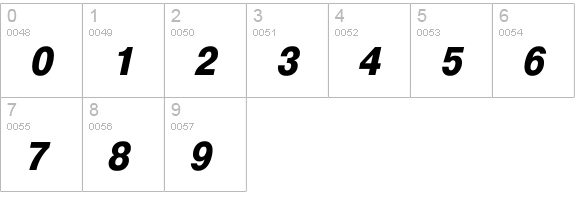
Pragmatica Cond ExtraBold Oblique Font Details
Pragmatica Cond ExtraBold Oblique is an extra-heavy, attention-grabbing, condensed-width, italic variant in the Pragmatica typeface family \xE2\x80\x94 well suited to high-impact headlines, posters, and bold branding.
Pragmatica Cond ExtraBold Oblique font is a bold and dynamic typeface that exudes confidence and modernity. Its strong slanted design adds a touch of sophistication to any project, making it perfect for headlines, branding, and editorial designs. The sharp angles and sleek curves of this font create a sense of movement and energy, capturing the attention of the reader. What makes Pragmatica Cond ExtraBold Oblique font even more appealing is that it is available for free download at FontsMarket.com. This means you can easily access this high-quality typeface and use it in your designs without any cost. Whether you're a professional designer looking to elevate your work or a hobbyist seeking to enhance your projects, Pragmatica Cond ExtraBold Oblique font is a versatile and stylish choice that will surely make a statement. Download it today and add a touch of boldness to your creative endeavors.